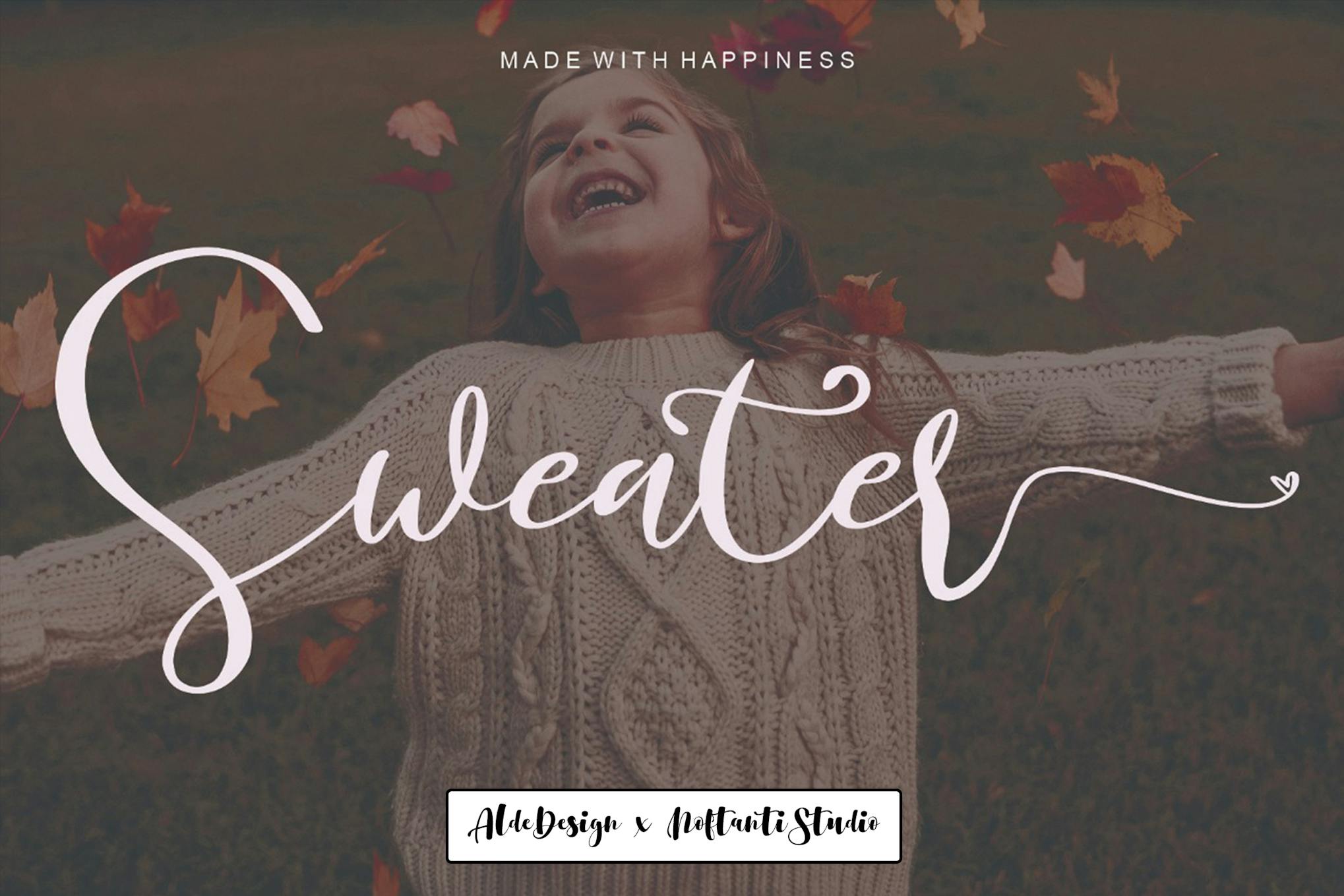
Sweater Wedding Font
The Sweater Wedding Font excels in cozy design applications including intimate wedding invitations, warm bridal branding, comfortable ceremony logos, cozy product packaging, casual business cards, homey portfolios, warm greeting cards, cozy social media graphics, intimate event signage, and comfortable marketing materials. Its cozy script style makes it perfect for projects requiring warm elegance that communicates comfort and establishes intimate brand positioning with audiences seeking cozy wedding experiences and homey sophistication.
What makes the Sweater Wedding Font truly exciting is its exceptional ability to capture the warm comfort and intimate coziness of home-style weddings through lovingly crafted letterforms. The font features flowing, comfort-inspired strokes with cozy flourishes and warm proportions that create a distinctly homey appearance. Each character displays masterful attention to comfort detail with soft curves, warm connections, and cozy spacing that give text a comfortable, hand-lettered quality. The font's cozy character and warm rhythm create an atmosphere of intimate comfort while maintaining elegant sophistication and wedding authenticity.
The Sweater Wedding Font family typically includes regular weight with extensive character coverage, featuring uppercase and lowercase letters, numerals, punctuation marks, and international characters. The typeface often incorporates stylistic alternates, contextual ligatures, and cozy swashes that enhance its signature warmth. These additional elements provide designers with creative flexibility to customize text appearance and achieve more natural-looking comfortable handwriting that reflects the font's cozy and warm character.
This comfortable signature font distinguishes itself through its remarkable balance of intimate charm and professional elegance. Unlike formal or distant fonts that lack personal warmth, Sweater Wedding Font embraces the power of cozy design to create intimate connections with wedding audiences. The font's warm character makes it essential for intimate wedding planners, cozy brands, and comfortable celebration businesses where creating warm wedding experiences and cozy memories is fundamental to success in intimate wedding markets.